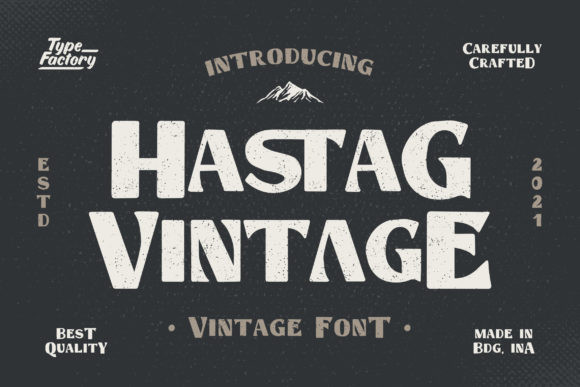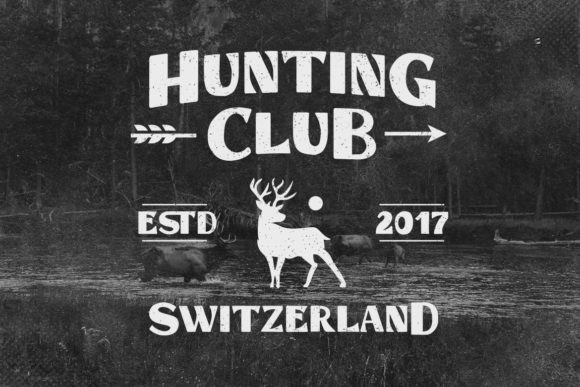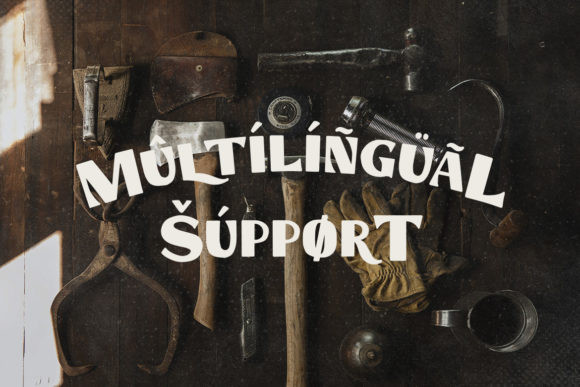
Hastag Vintage Font
Hastag Vintage is a bold, thick lettered display font. No matter the topic, this font will be an incredibly asset to your fonts’ library, as it has the potential to elevate any creation.